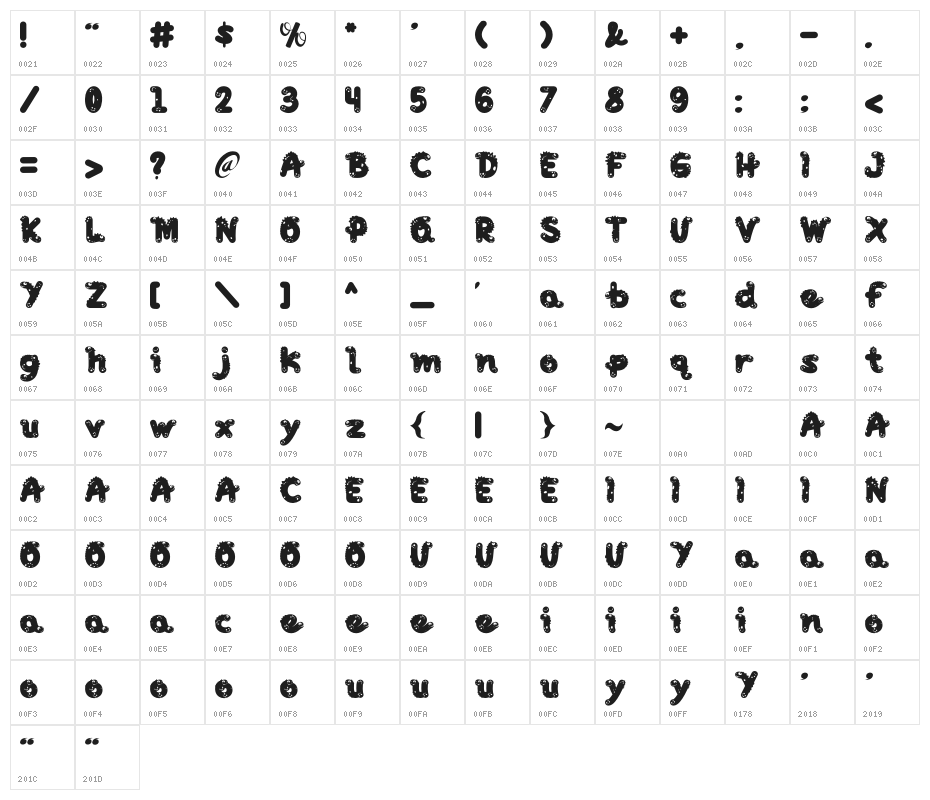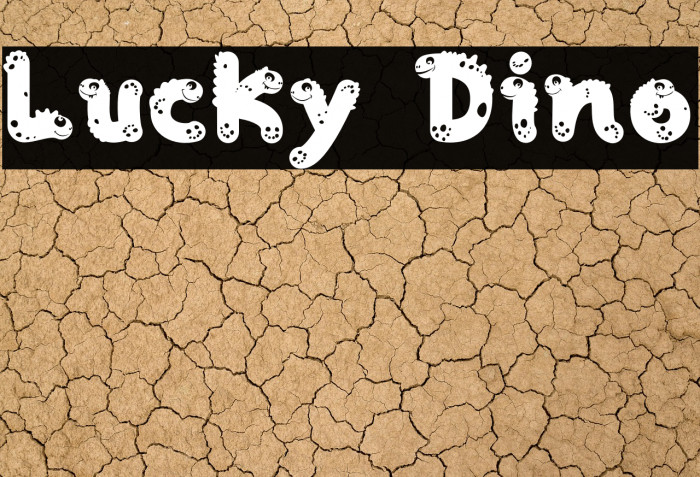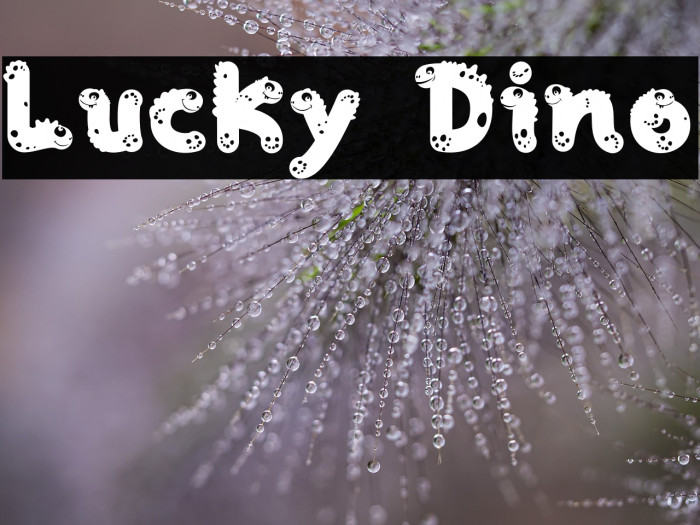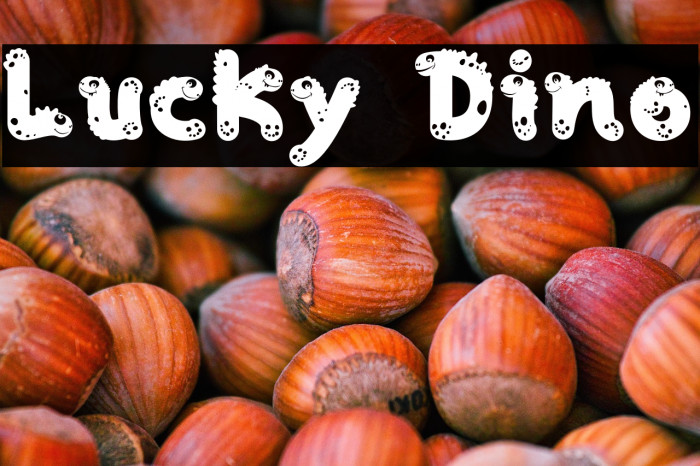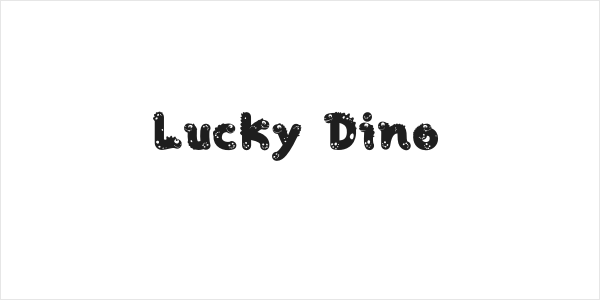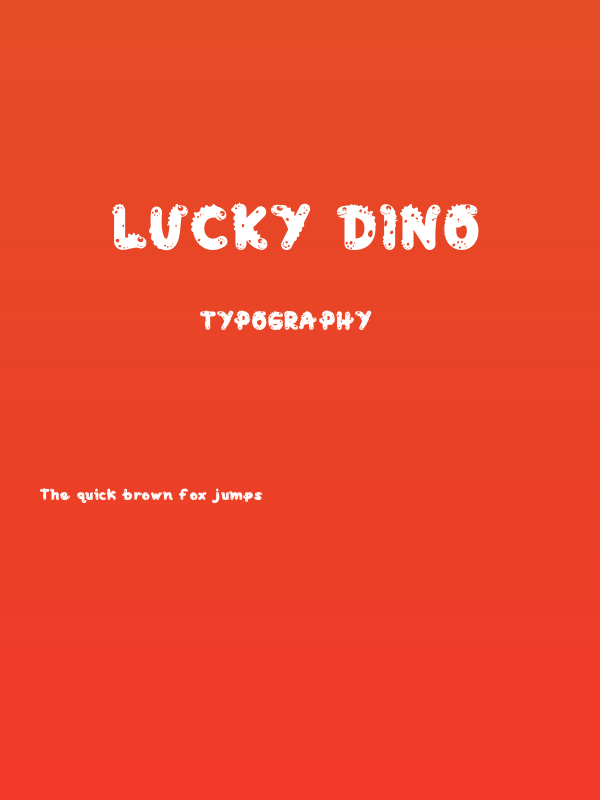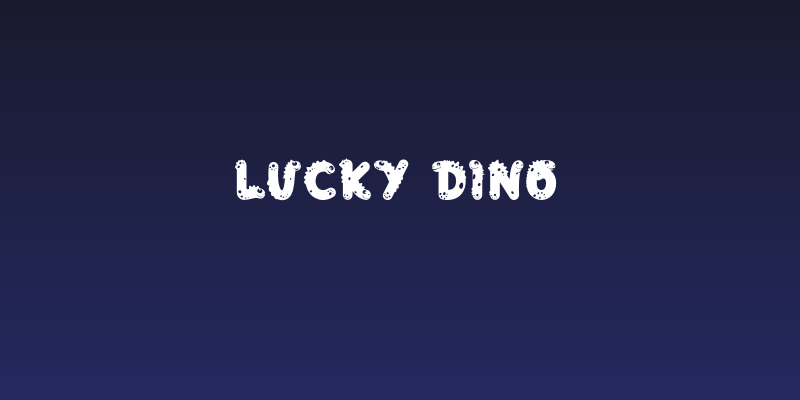
Lucky Dino Font
Lucky Dino Description
This playful and whimsical font features bold, rounded characters with a unique, bubbly texture. Each letter is adorned with small, irregular circular cutouts, giving it a fun and dynamic appearance. The font maintains a consistent thickness throughout, with a slightly cartoonish style that adds to its charm. The numbers and special characters follow the same design, ensuring a cohesive look across all elements. This font is perfect for projects that require a touch of creativity and playfulness, making it ideal for children's materials, party invitations, or any design that aims to capture a lighthearted and joyful tone.
| Proposed Projects | Ideal for children's books, party invitations, playful branding, and creative posters. |